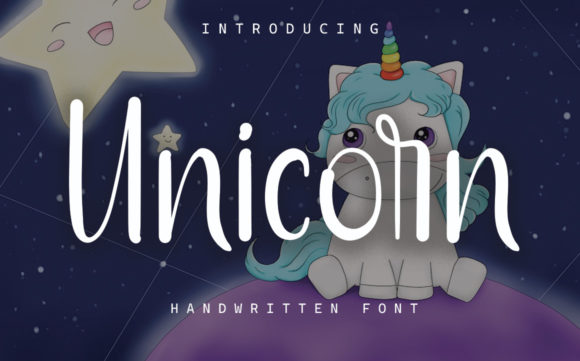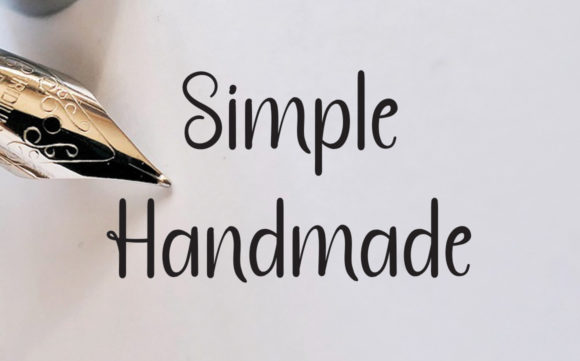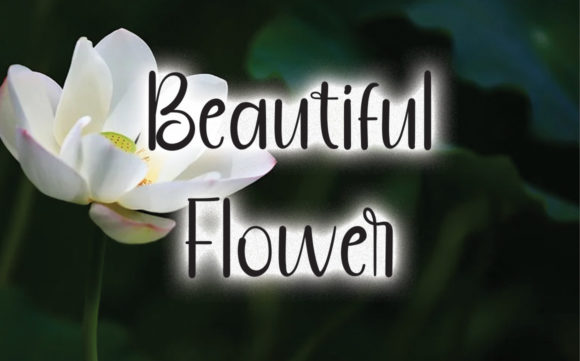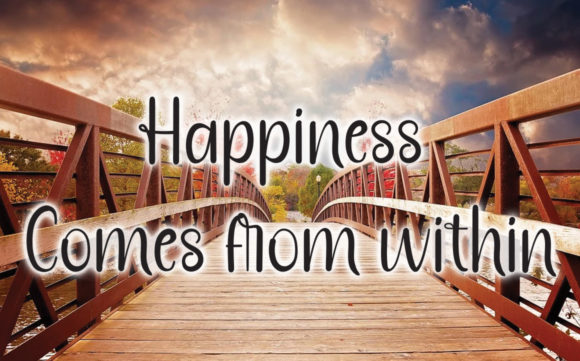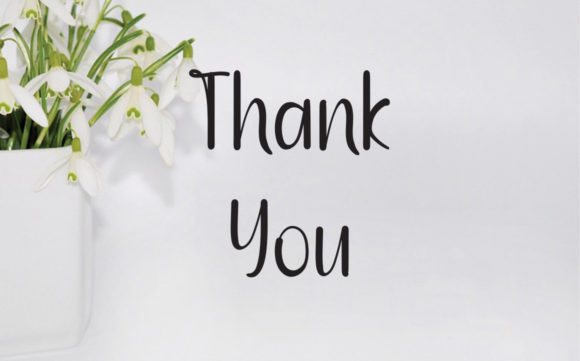
Unicorn Font
About Unicorn Font
“Unicorn” is a stunning and flowing handwritten font that brings a touch of enchantment and elegance to a wide range of design projects. With its graceful and unique letterforms, this font can elevate the visual appeal of various applications.
The font’s flowing and beautiful design makes it an excellent choice for creating captivating wall displays. Whether you’re designing artwork for a home, office, or event space, the fluid and artistic nature of “Unicorn” can add a touch of magic and creativity to your displays.
“Unicorn” also lends itself well to special occasions like weddings. Its elegant and flowing strokes make it perfect for crafting exquisite wedding invitations that set the tone for a romantic and memorable celebration. Its graceful curves and delicate lines can add a sense of sophistication and charm to the stationery.
For branding purposes, “Unicorn” can be used to create social media post logos and advertisements that stand out. Its unique and eye-catching typography can help your brand message resonate with your audience, conveying a sense of creativity and originality.
The font’s versatility extends to product packaging and design. Whether it’s labels, product packaging, or product designs, “Unicorn” can bring a touch of elegance and charm to the visual representation of your products. Its flowing nature can make your products appear more inviting and appealing.
Photography and watermarking are other areas where “Unicorn” can be effectively utilized. Its unique letterforms can serve as stylish watermarks, adding a signature touch to your photos while maintaining their visual integrity.
In summary, “Unicorn” is a beautiful and flowing handwritten font that possesses a sense of enchantment and elegance. Its versatility allows it to be used in various applications such as wall displays, wedding invitations, branding, product packaging, photography, and more. With its ability to convey impressive typography, “Unicorn” can add a touch of creativity and sophistication to any project that requires captivating design elements.